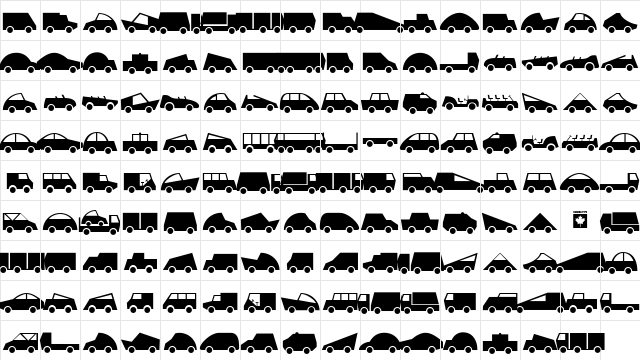
Autobats Regular
| Foundry | Canada Type |
Design Context for Autobats Typeface
Autobats is a composed and adaptable typeface that performs quietly and consistently across a wide range of design contexts.